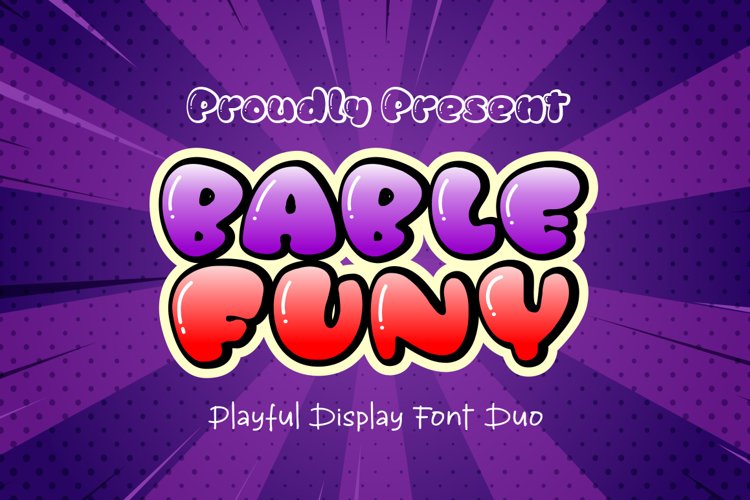
Bable Funy - layered font duo
Bable Funy ligh
Bamble Funy Shadow
Bamble Funy reg
Bable Funy Hand
Bable Funy
We are proud to present our new font.
Her name is Bable Funy.
Bable Funy is a layered font duo that will add a cheerful tone to every letter.
This is the perfect choice for crafter, as every purchase you will get a cute doodle to support your design.
Bable funy is a fun, bold font, for cutting with a Cricut & Silhouette crafting machine, for logos, t-shirts, children's book titles, scrapbooks, or quotes for greeting cards.